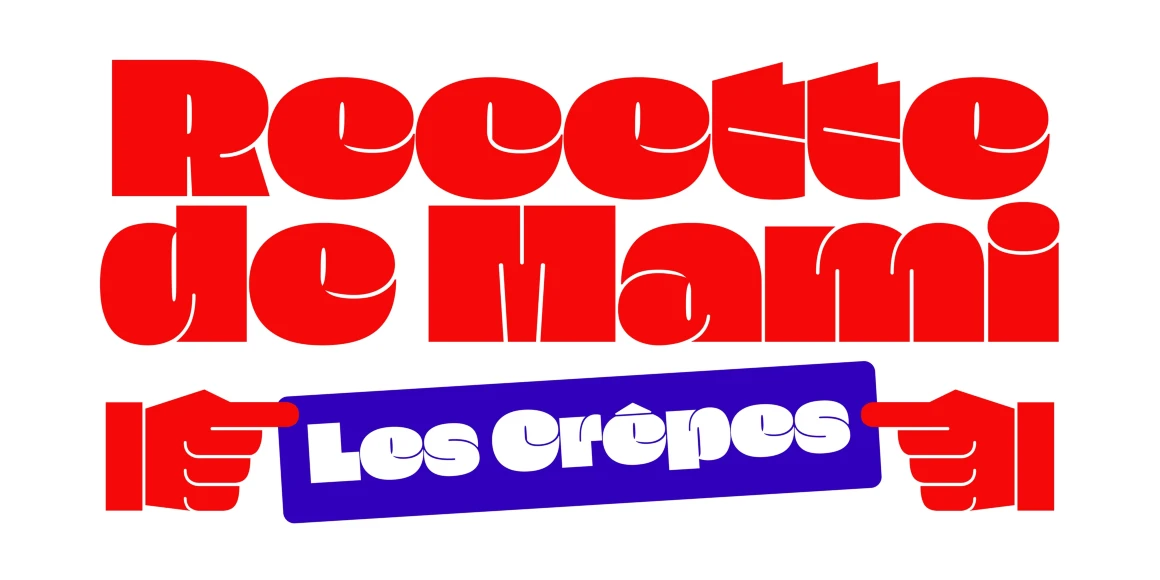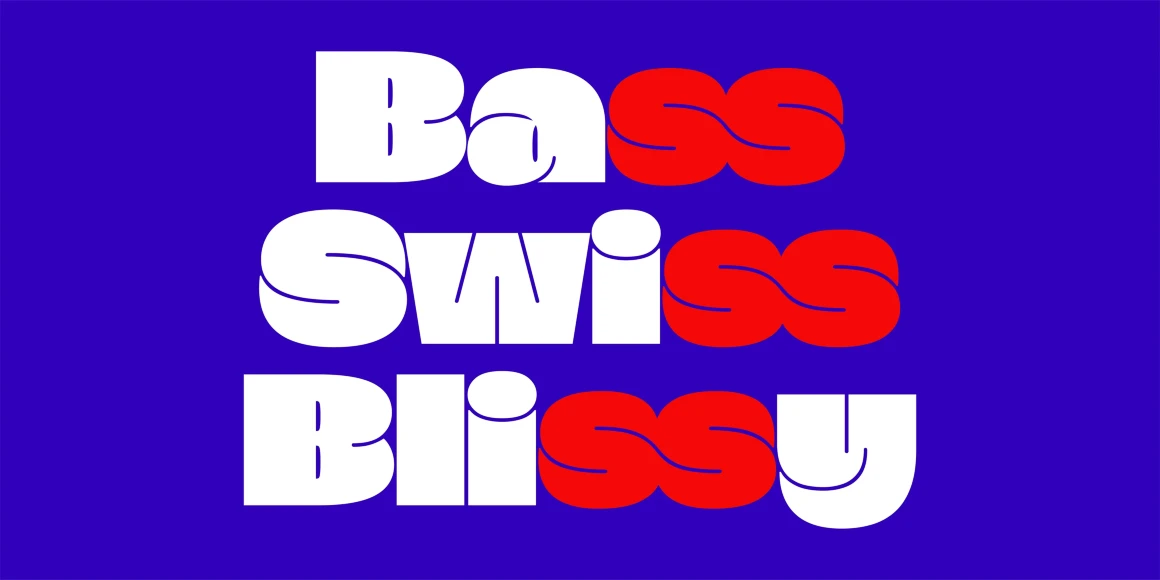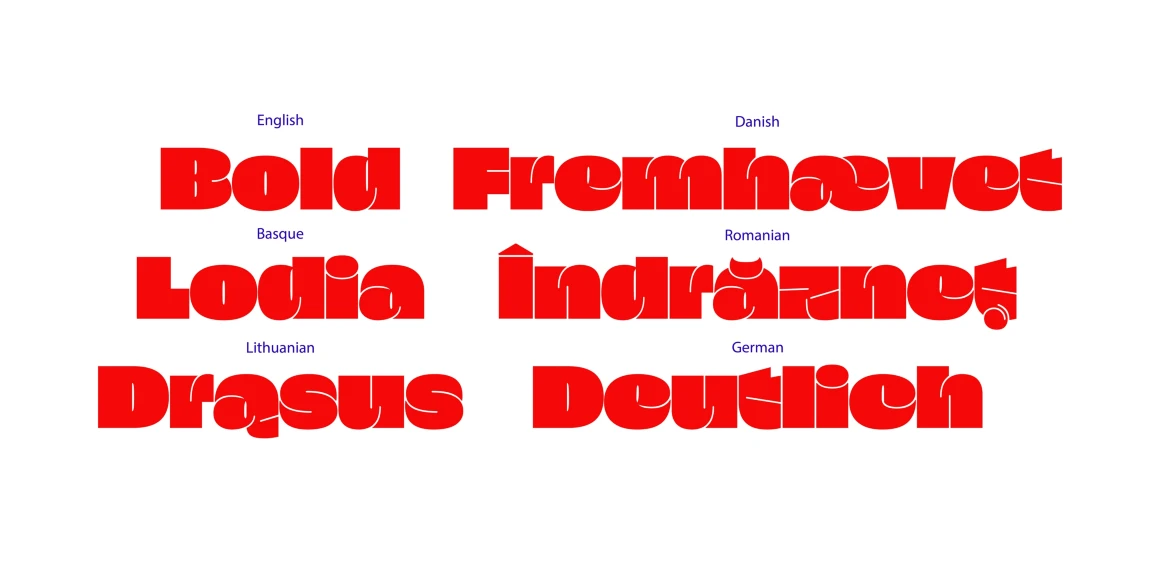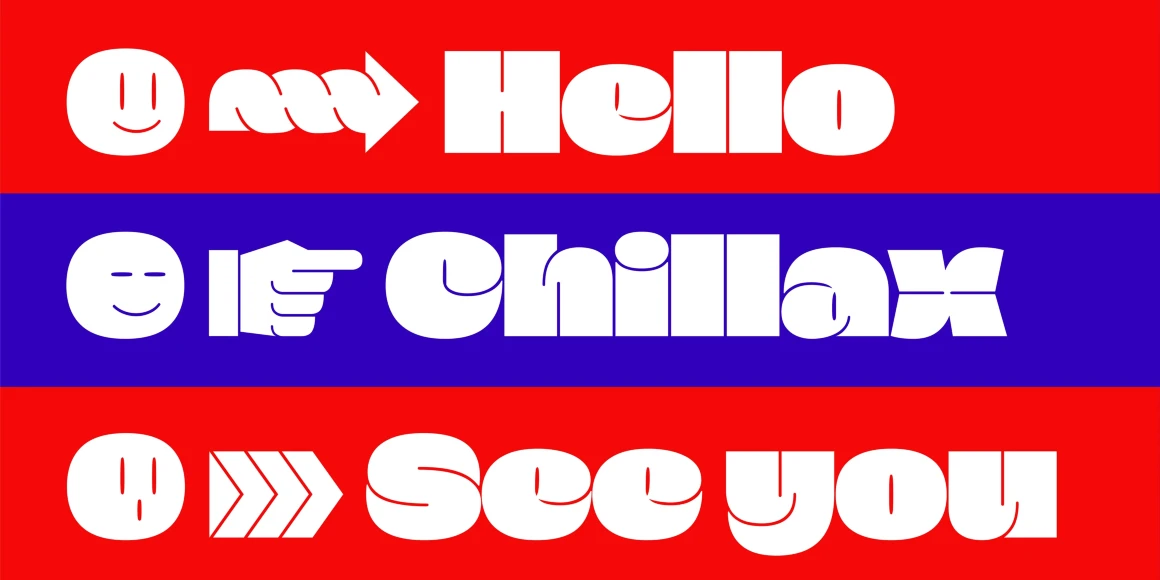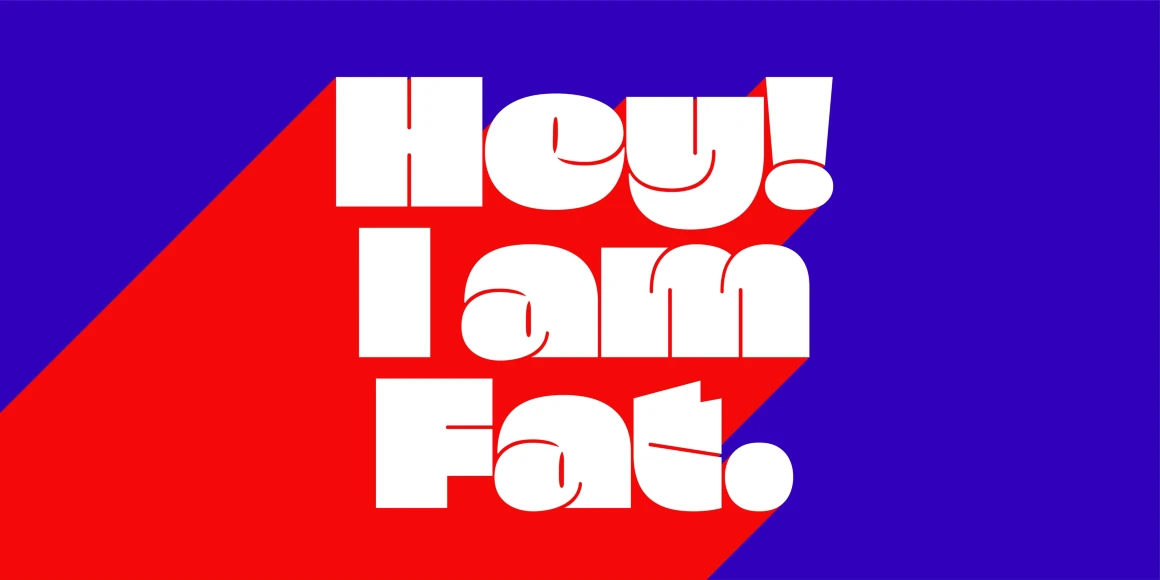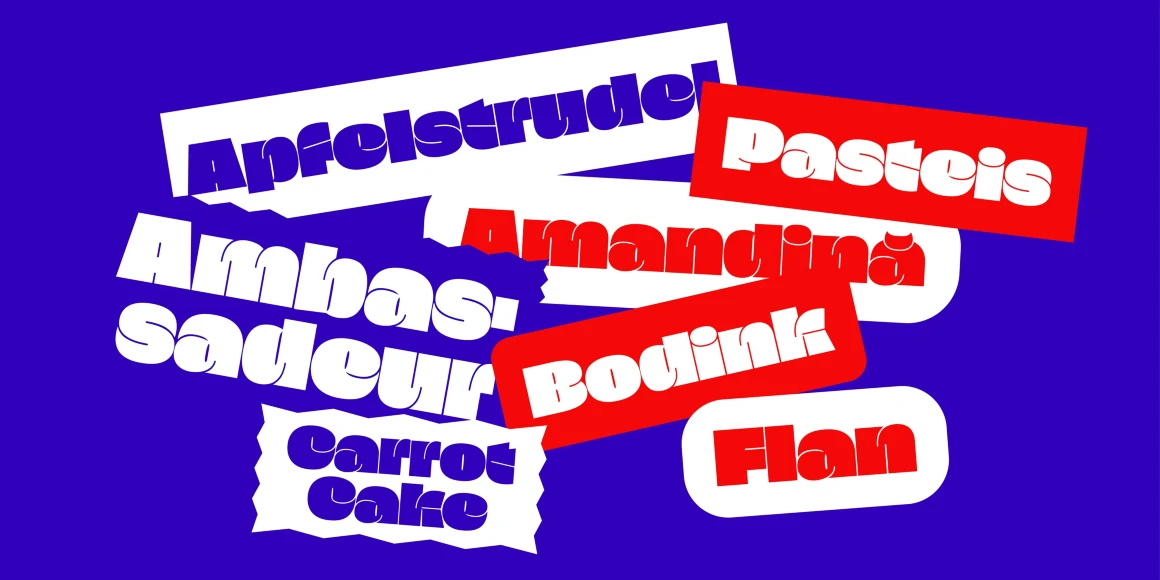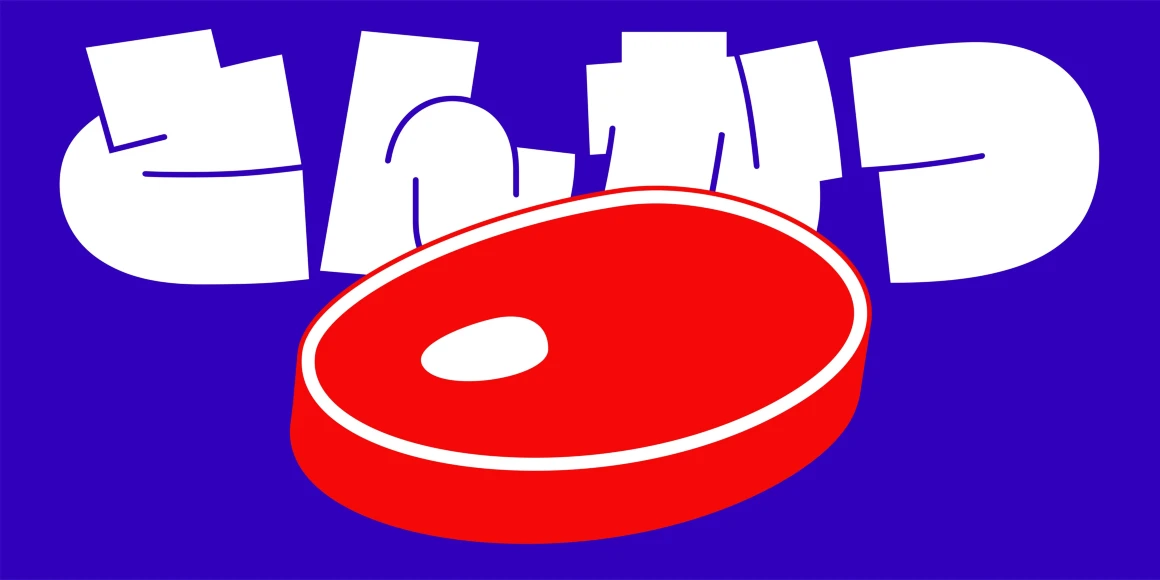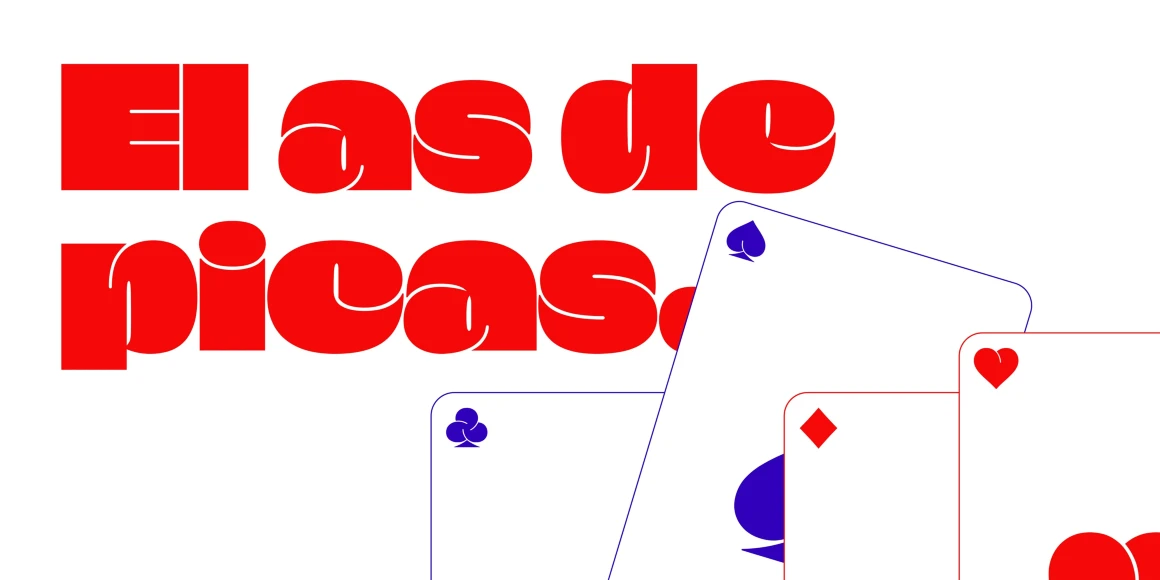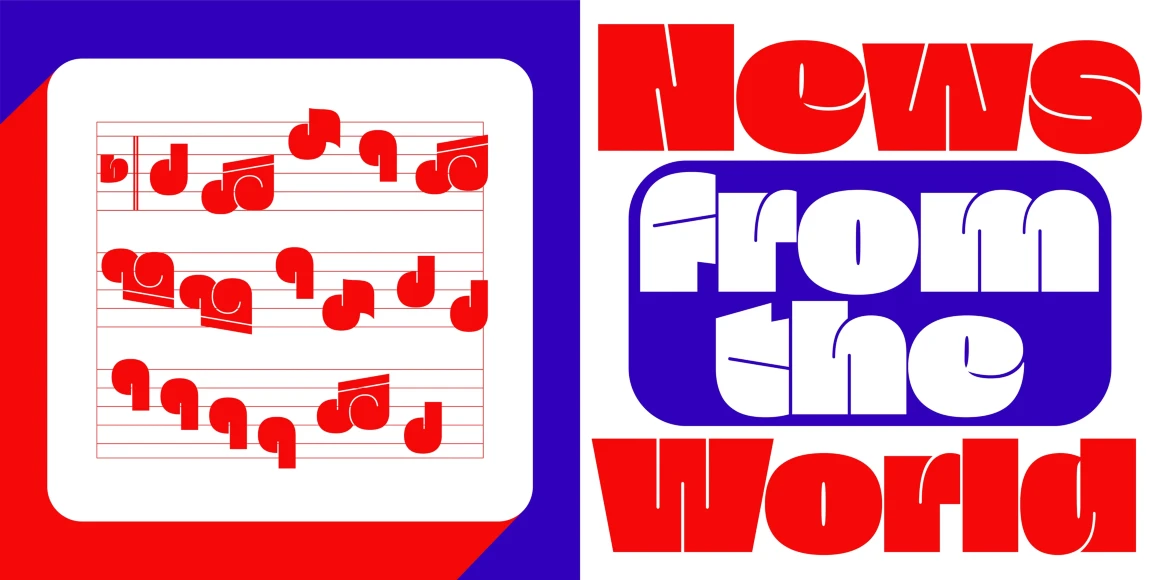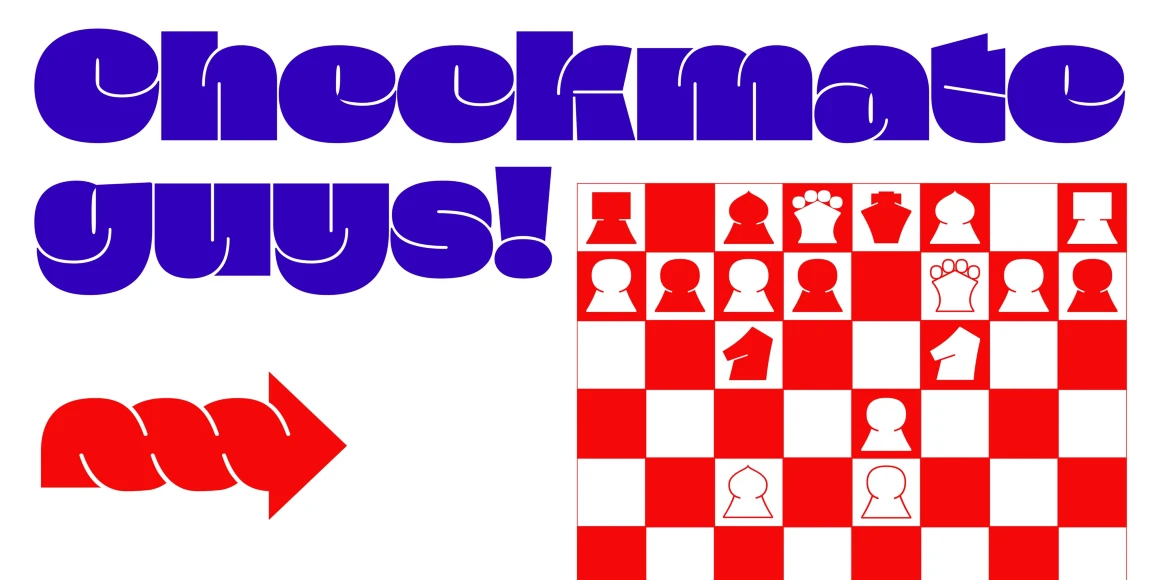
Fat
By Gaëtan Baehr & Li Yuxin
Fat Black
Fat is an ultra-bold display sans serif with extreme thickness and commanding presence, designed to capture attention and leave a lasting impact. Three-dimensional details, integrated accents, and ligatures enhance usability. Supporting both Latin and simplified Japanese Kana, Fat enables bilingual typography for cross-cultural companies and brands. Including arrows, pictograms, and emojis, Fat is built for headlines, posters, and album covers requiring an assertive visual impact.